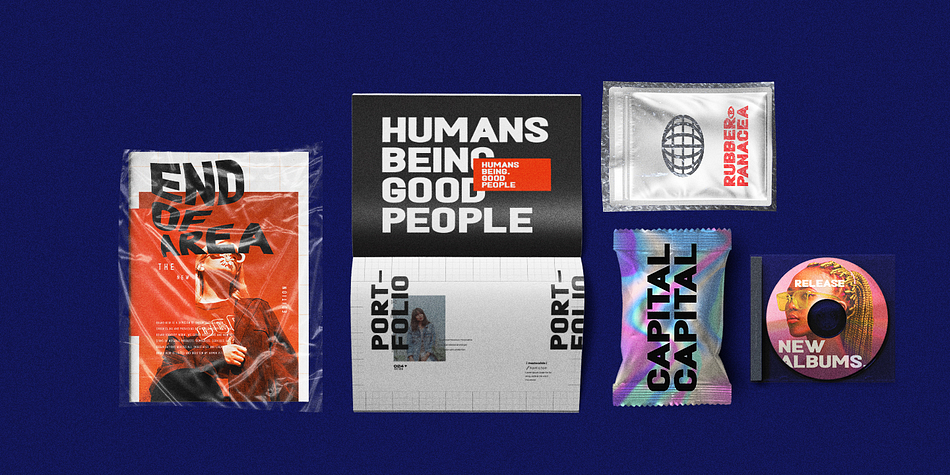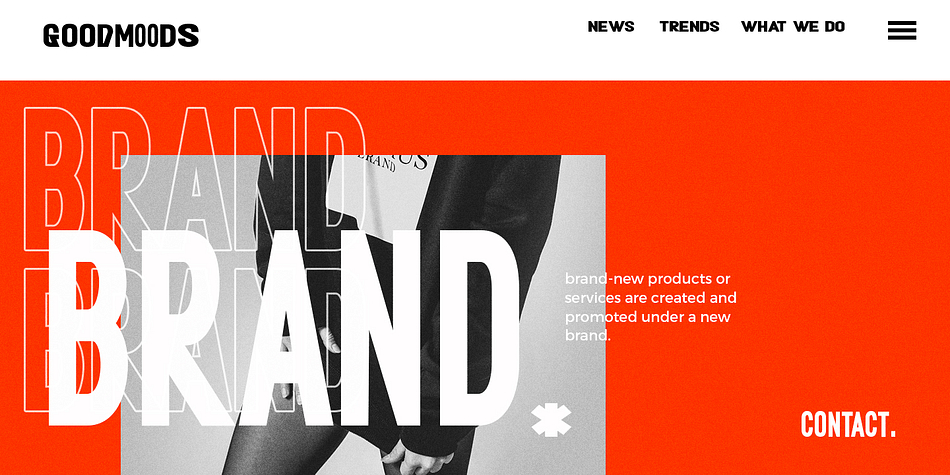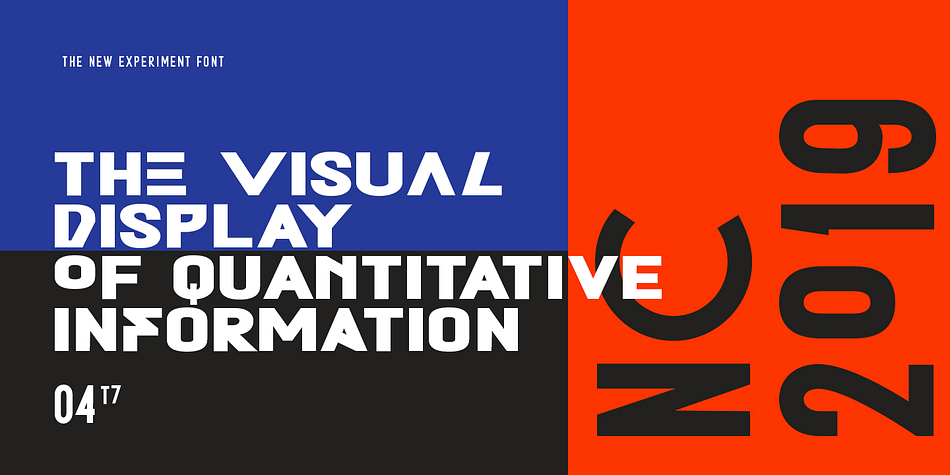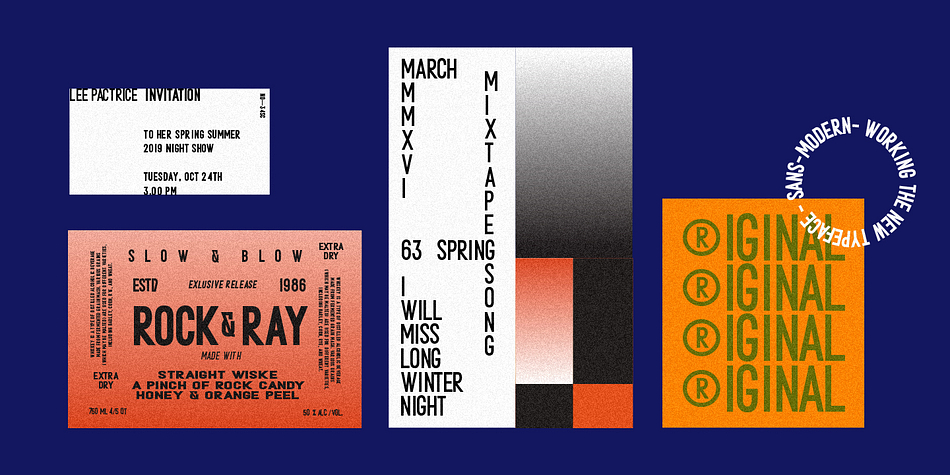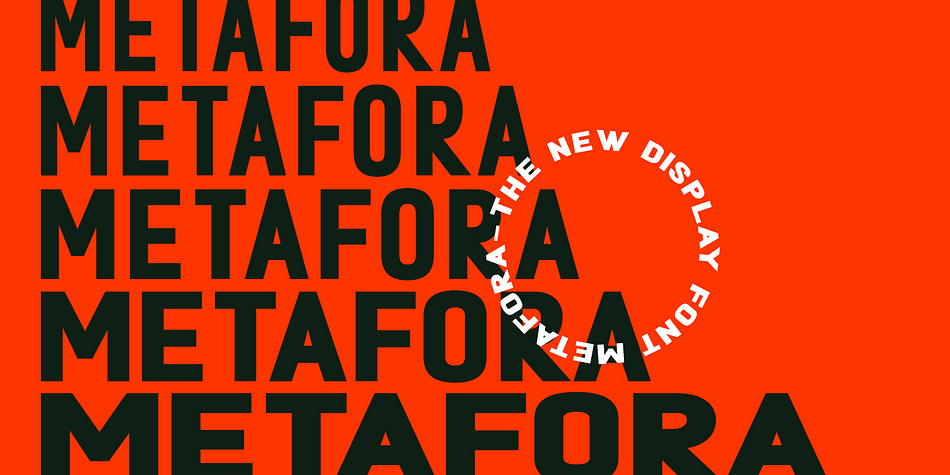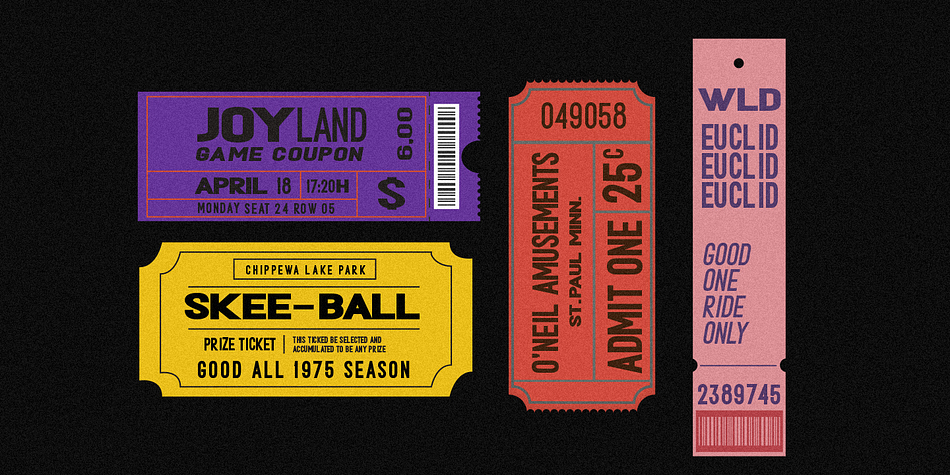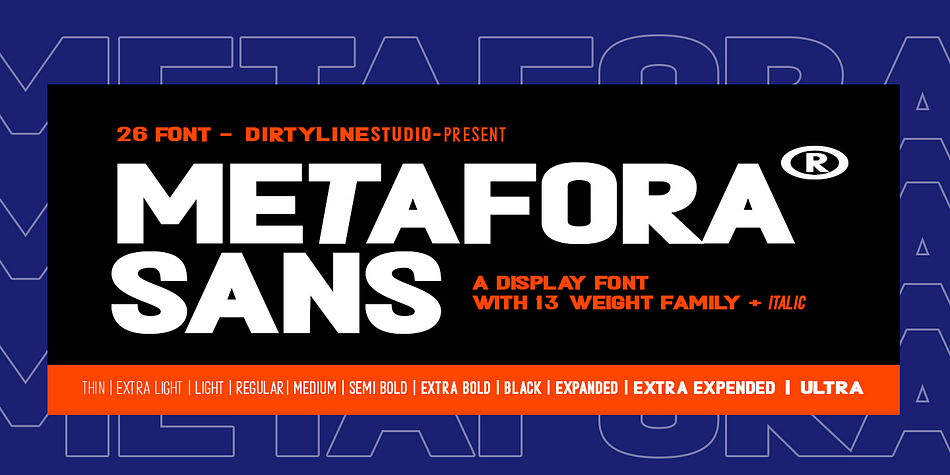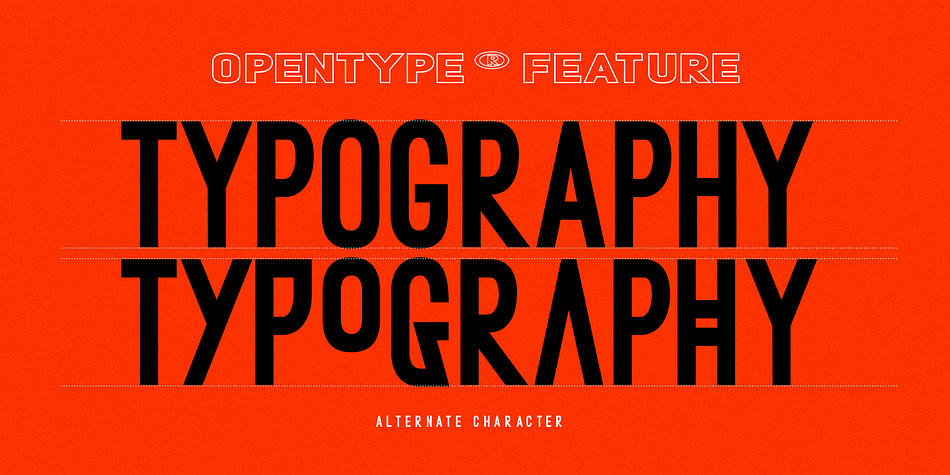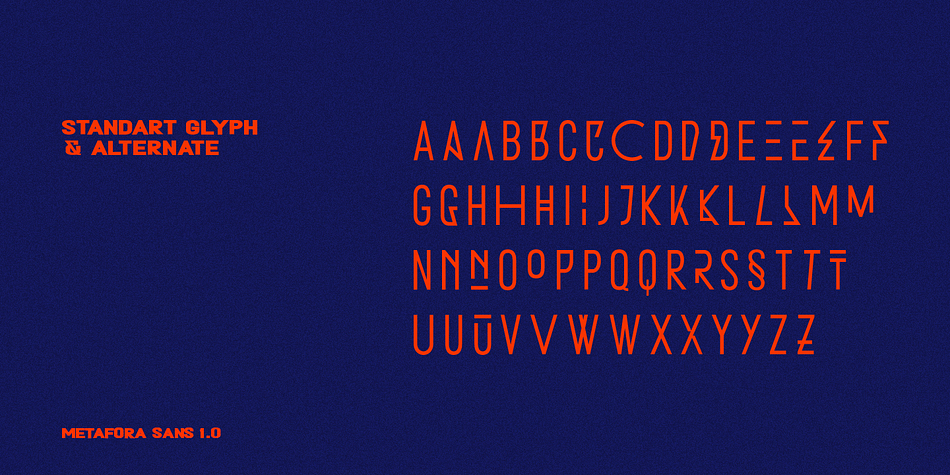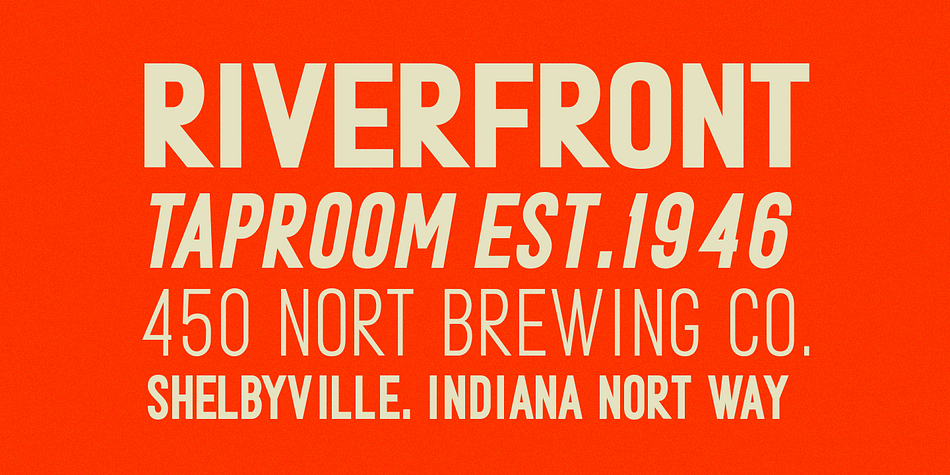
Designed by Hendra Maulia, Metafora Sans is a display sans font family. This typeface has twenty-six styles and was published by Dirtyline Studio.
Metafora Sans is a contemporary display family with multifunctional workhorse designed to work best in any printed and on screen contexts, including logo design, brand identities, websites, packaging, poster and headline.
The typeface comes in 13 weights - with upright and oblique for each weight - for a total of 26 styles.